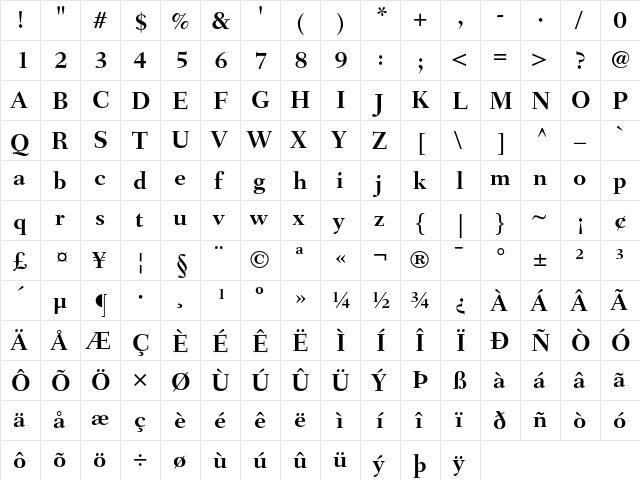
Fairfield LH 75 Bold
Design Context for Fairfield LH Typeface
Fairfield LH takes a measured approach to typography — its balanced proportions and neutral character make it a reliable workhorse for both digital and print work. The heavy weight commands attention and anchors typographic hierarchies.